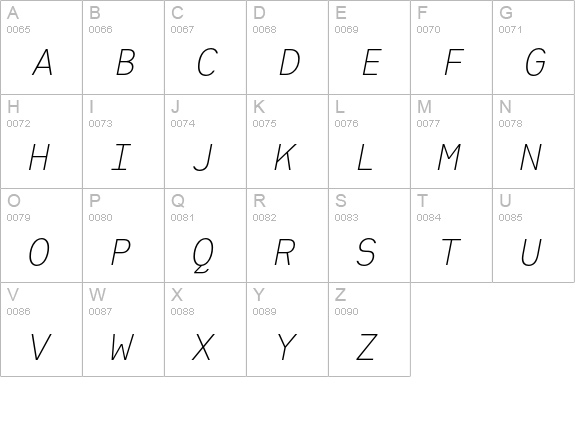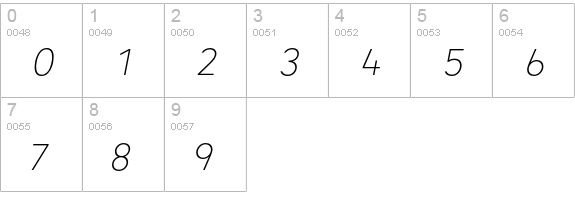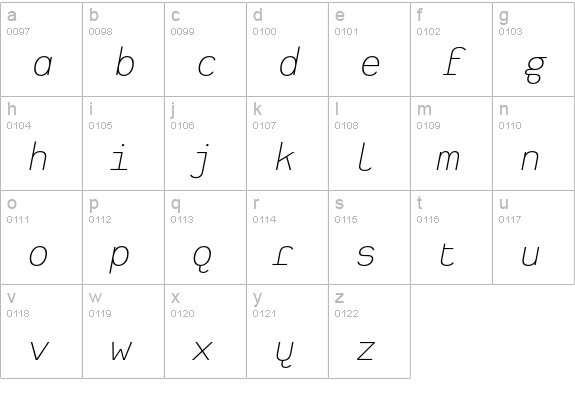
Heimat Mono ExtraLight Italic Font Details
Heimat Mono ExtraLight Italic is an airy, ultra-refined, italic variant in the Heimat typeface family \xE2\x80\x94 well suited to minimalist headlines and refined display use.
Heimat Mono ExtraLight Italic font is a delicate and elegant typeface that exudes a sense of modernity and sophistication. Its extra light weight and slanted italic design make it perfect for adding a touch of refinement to any project. The sleek and minimalist aesthetic of this font is ideal for creating a sleek and contemporary look in branding, editorial design, and more. What sets Heimat Mono ExtraLight Italic font apart is that it is available for free download at FontsMarket.com. This means that you can easily access this high-quality typeface without any cost, making it a valuable addition to your font library. With its clean lines and graceful curves, Heimat Mono ExtraLight Italic font is sure to elevate the visual appeal of your designs while conveying a sense of sophistication and style.